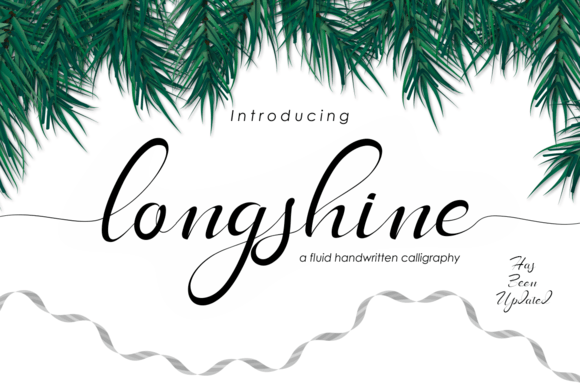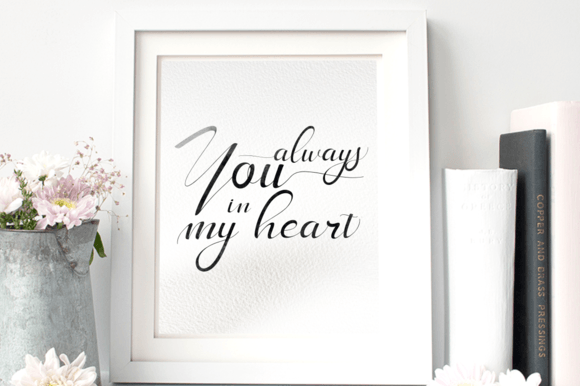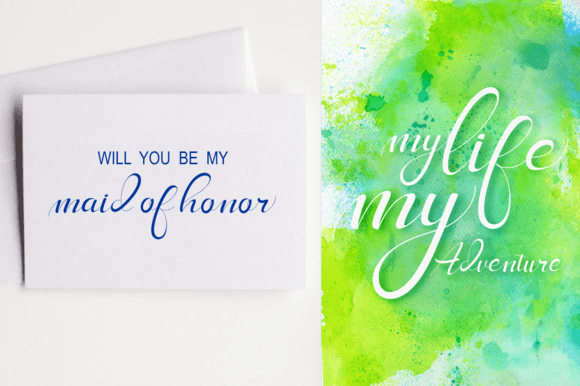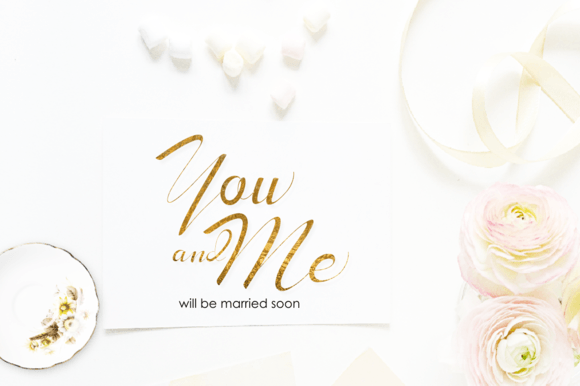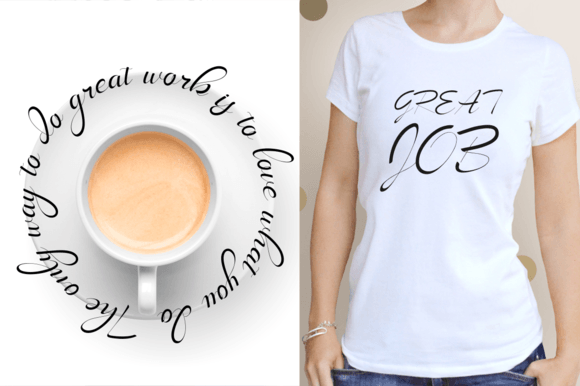
Longshine Font
About Longshine Font
LongShine Script is a fluid handwritten calligraphy font. Combining calligraphy typefaces with a free-flowing and moving baseline. It has a casual, yet elegant touch. Including initial and terminal letters, alternates, ligatures, and multiple language support.